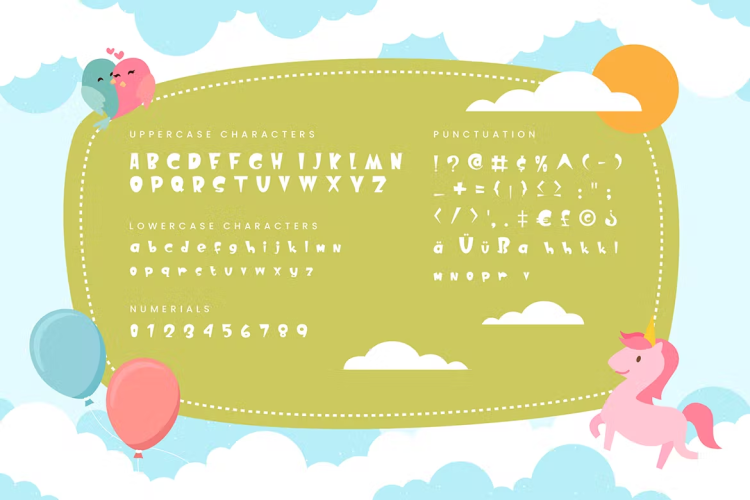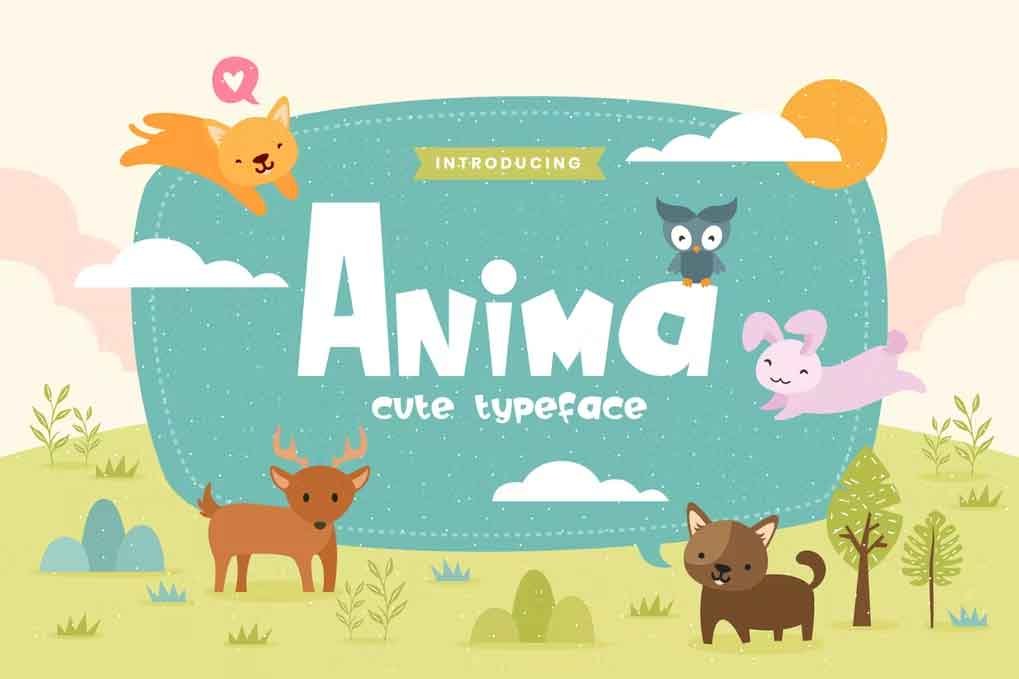
Anima Fun Children Typeface Font
Are you looking for a bold and fun font for children? We can help! Try to download our Anima font. The font is suitable to use for casual purpose especially children related occasion Oh yeah we forgot to mention that we give you 10 cute animals vector objects for free too in Adobe Illustrator format!
Where Anima Fun Children Typeface Font works best
Anima Fun Children Typeface Font keeps its shape at 14 and 16 pixels, which is where interface text actually lives. Numbers and capitals stay distinguishable in tables.
Presentations are read at a distance; a clean sans with a strong bold is the safest hierarchy you can build in a hurry.
Simple letterforms survive angles, glare and movement, so Anima Fun Children Typeface Font suits door signs, menus boards and exhibition panels.
What kind of work does Anima Fun Children Typeface Font suit?